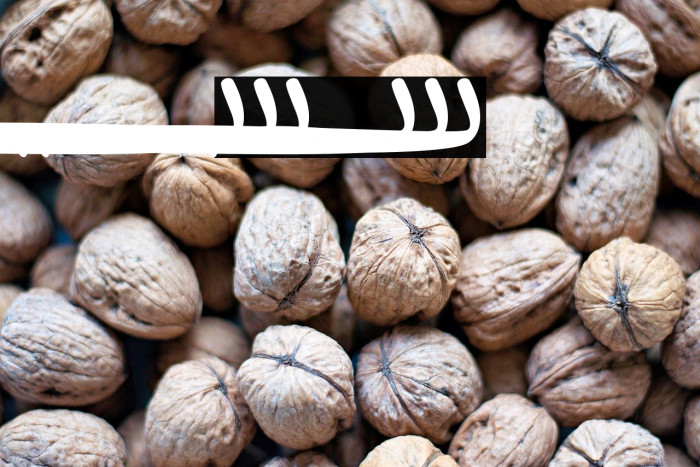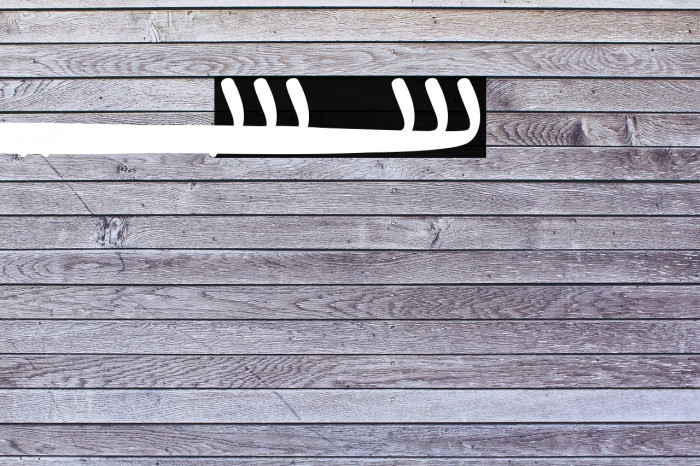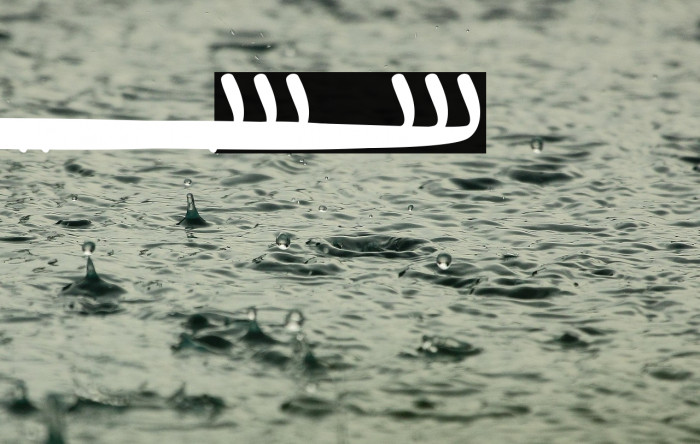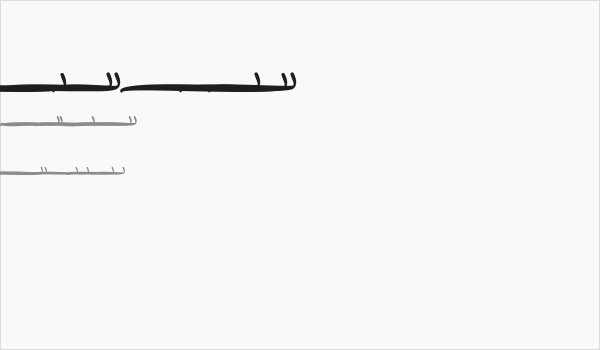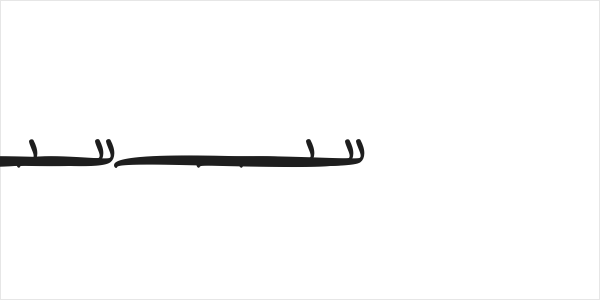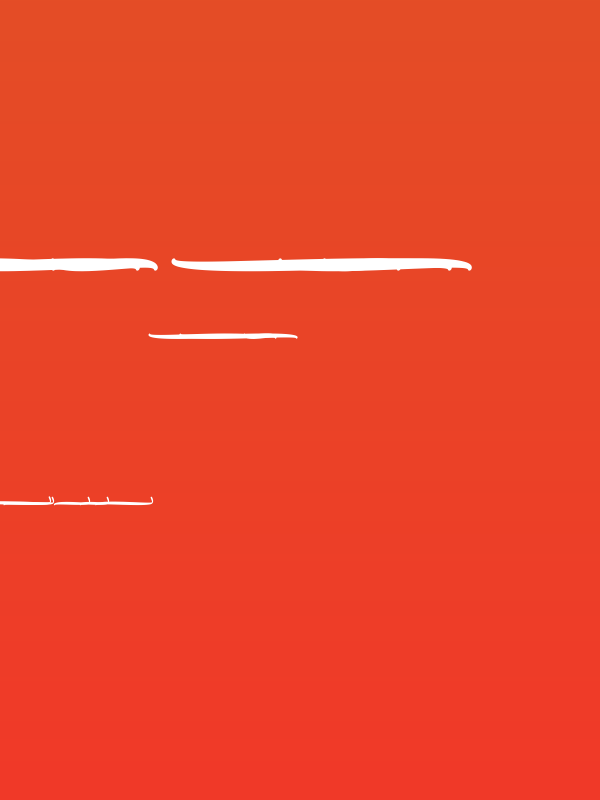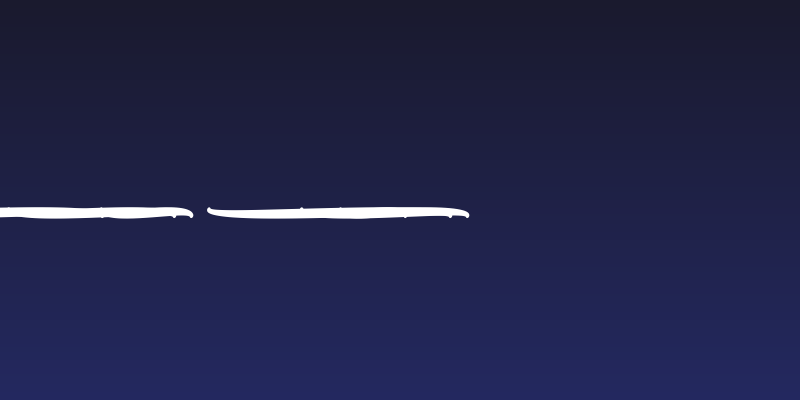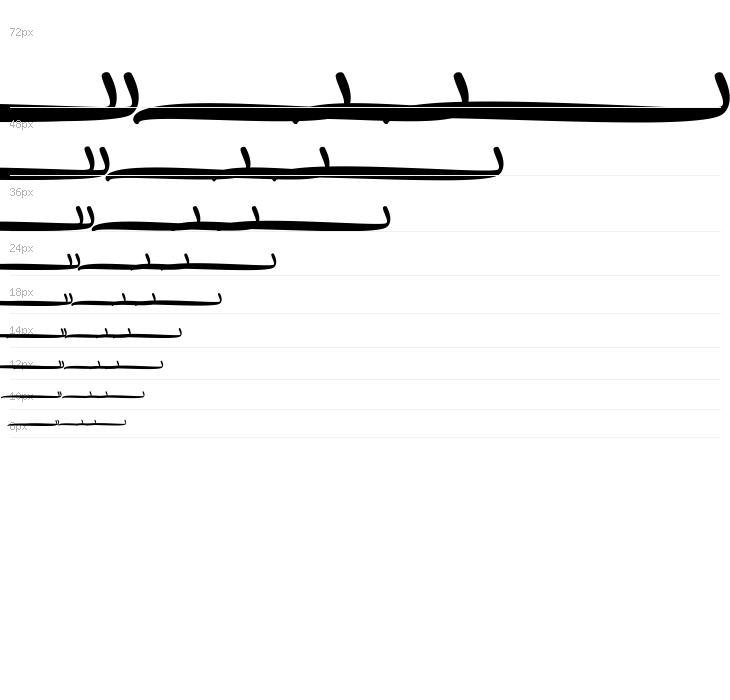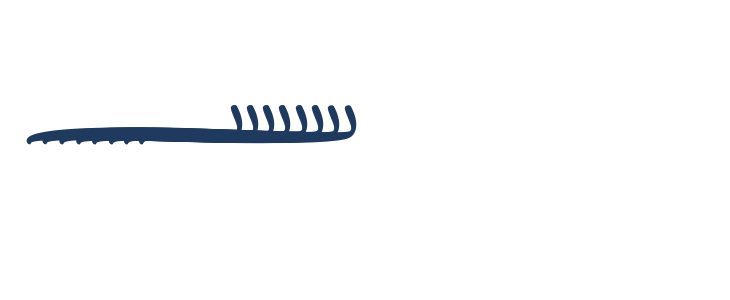
Shirebourn Swashes Font
Shirebourn Swashes Description
This font features a unique and artistic design with elongated, flowing strokes that resemble swashes. The characters are highly decorative, with each letter showcasing a distinct flair and flourish. The style is reminiscent of calligraphy, with a modern twist that adds a sense of elegance and sophistication. The strokes are bold and consistent, providing a strong visual impact. The overall appearance is both whimsical and refined, making it suitable for creative and expressive projects. The font's distinctiveness lies in its ability to convey a sense of movement and fluidity, making it ideal for designs that require a touch of artistic flair.
| Proposed Projects | Ideal for wedding invitations, artistic posters, branding projects, and any design that requires a touch of elegance and creativity. |